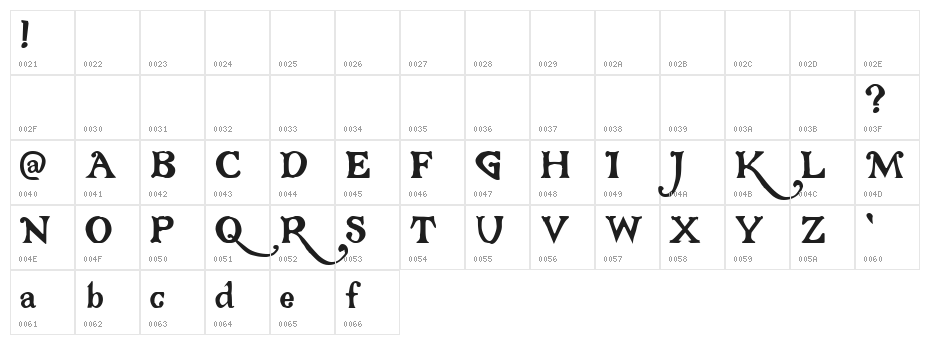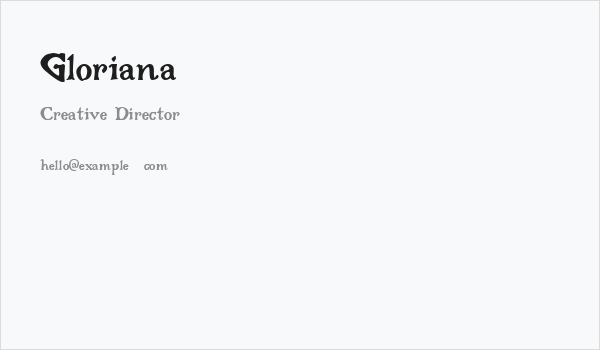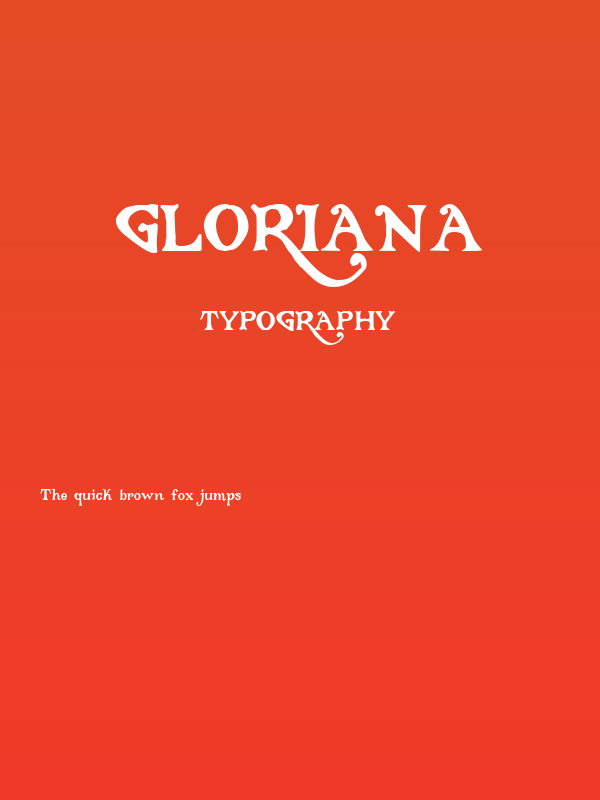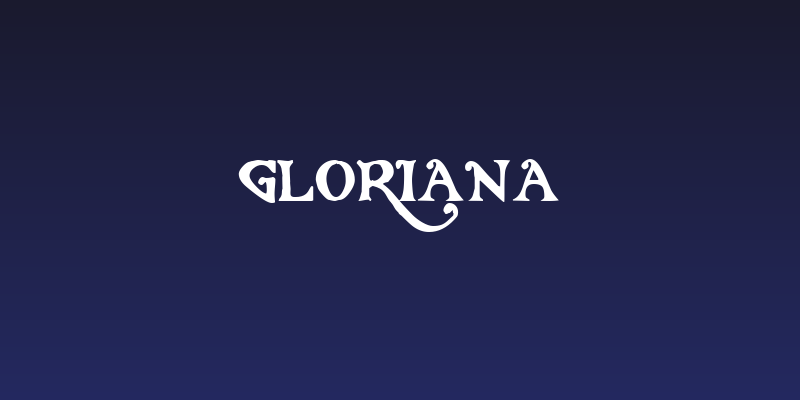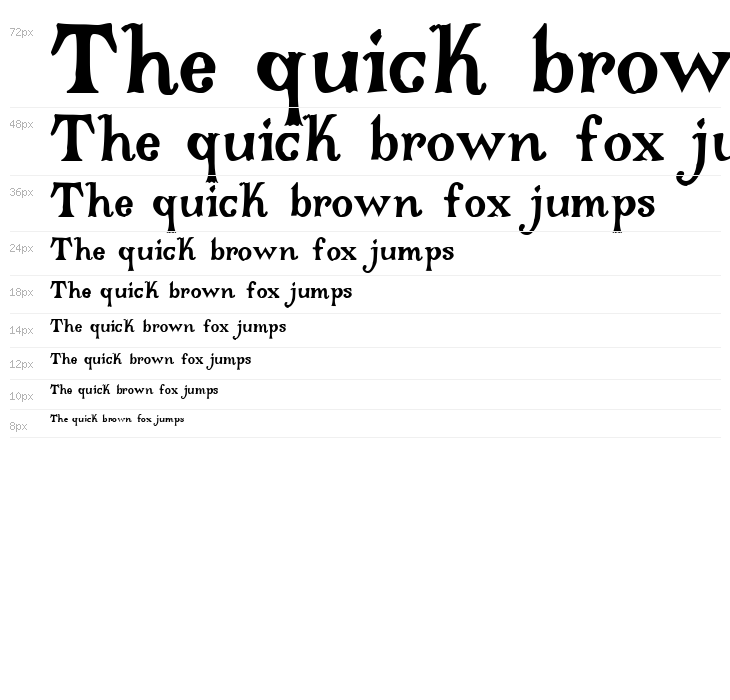
Gloriana Font
Gloriana Description
This font features a decorative and ornate style, characterized by its intricate swirls and flourishes that extend from the main strokes of the letters. The uppercase letters are particularly elaborate, with unique embellishments that give each character a distinct personality. The lowercase letters maintain a consistent style, though they are slightly less ornate, allowing for readability while still retaining the decorative theme. The font has a medieval or fantasy-like appearance, making it suitable for projects that require a touch of elegance and historical flair. The overall design is bold and eye-catching, with medium contrast in stroke thickness, providing a balance between decoration and legibility.
| Proposed Projects | Ideal for fantasy-themed book covers, historical event invitations, or decorative signage. |